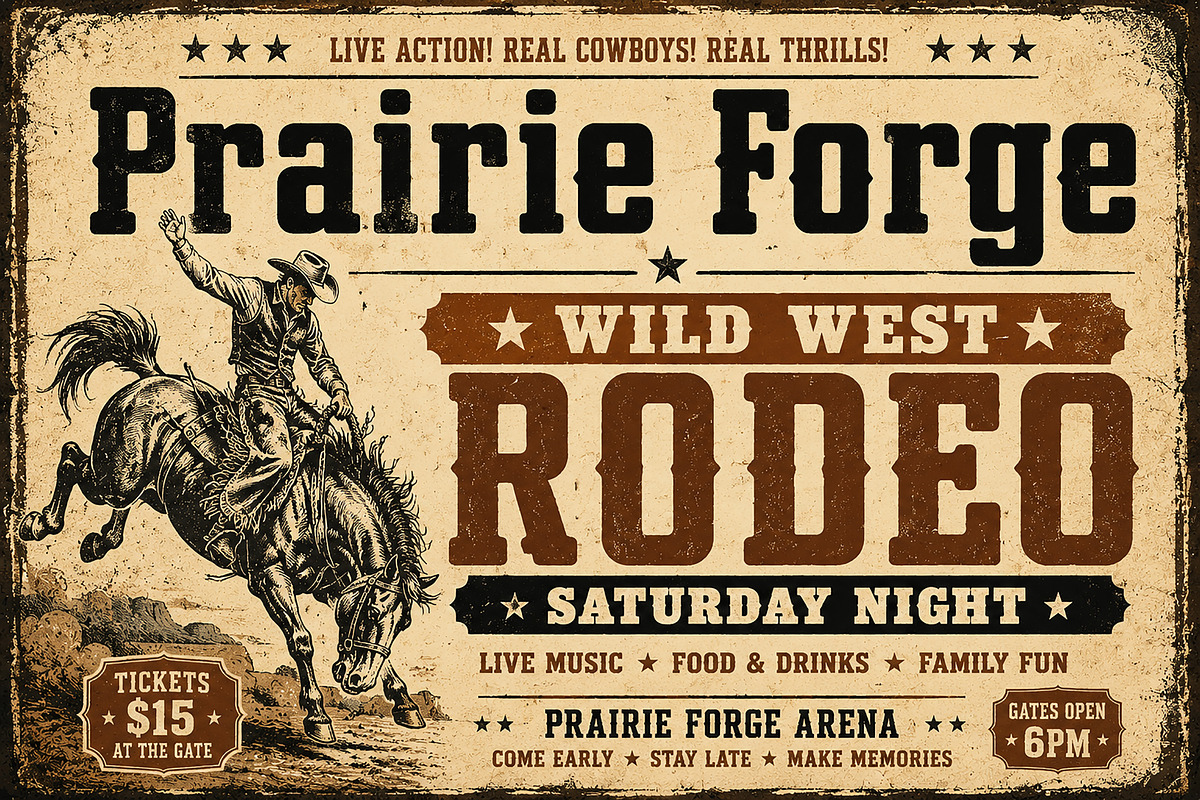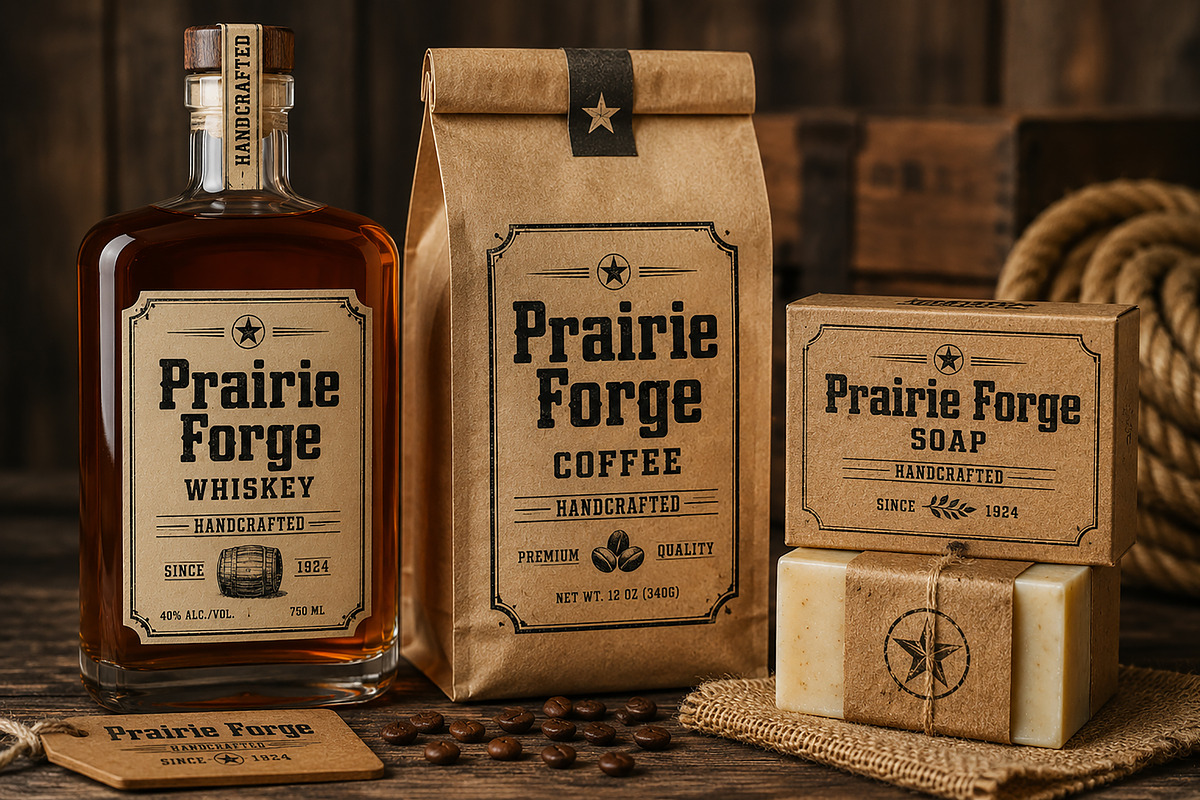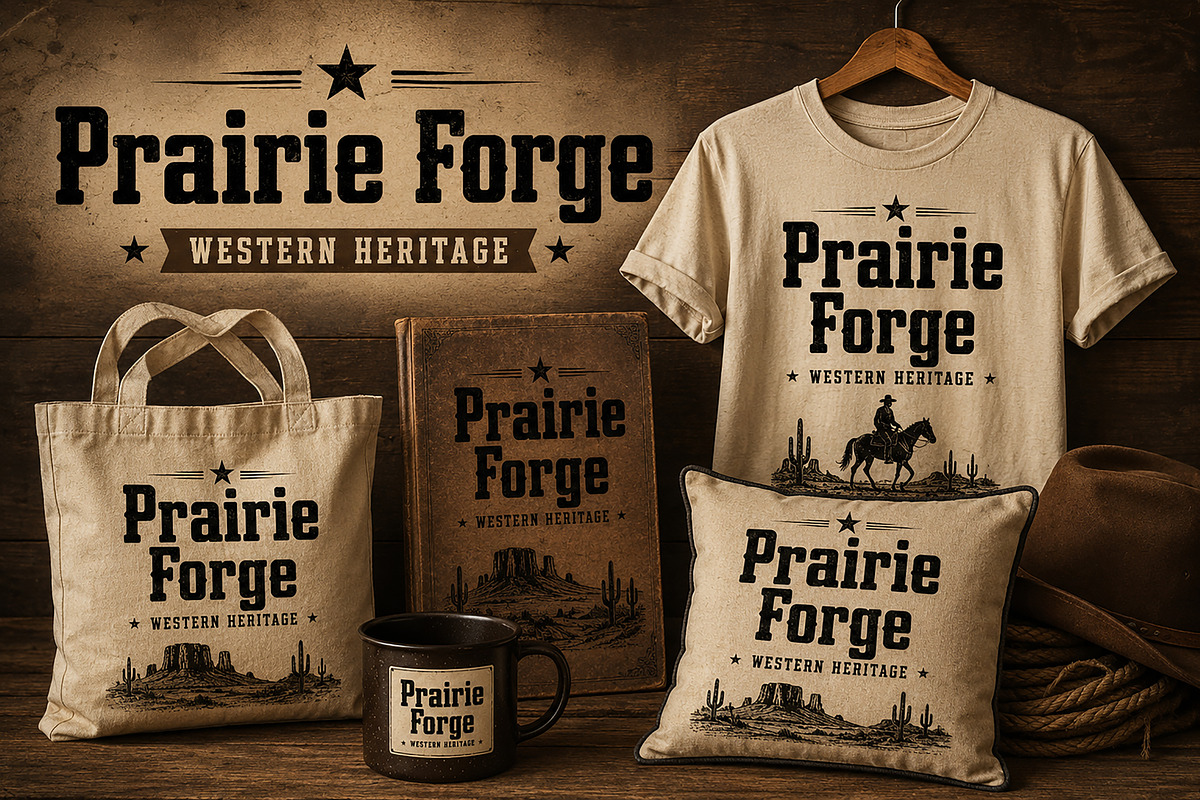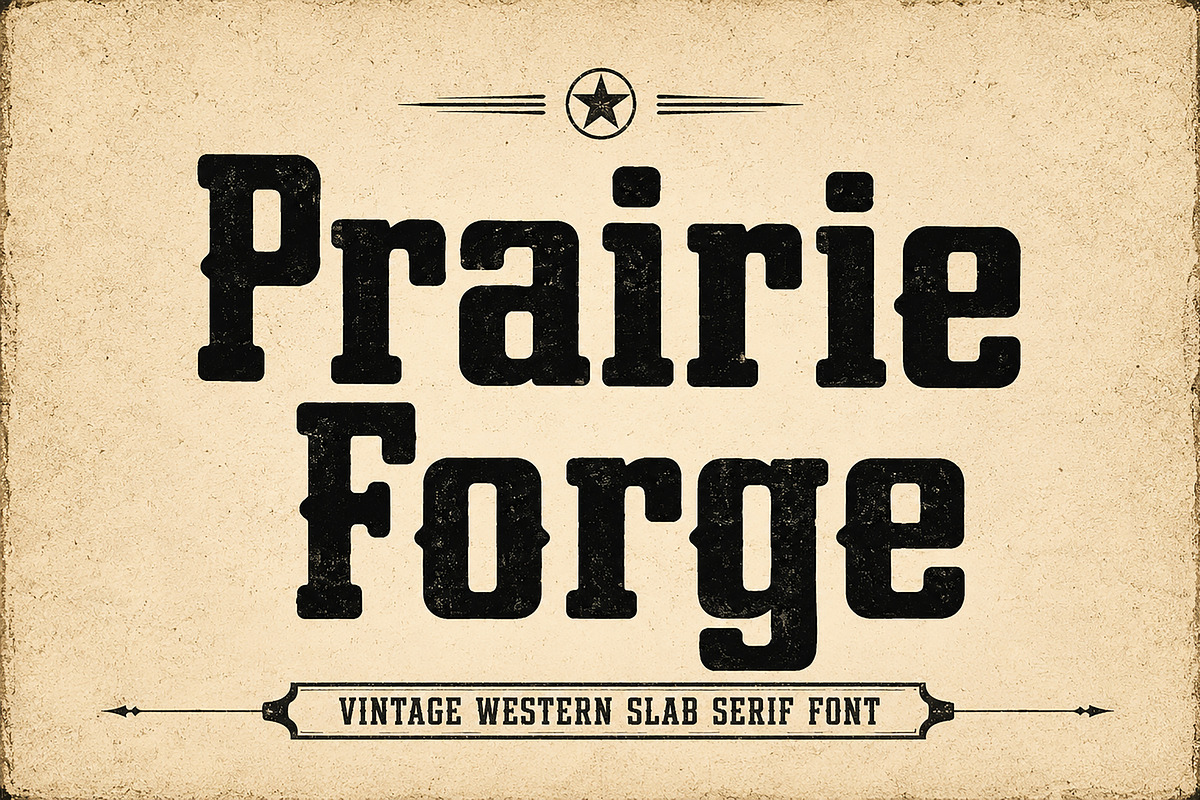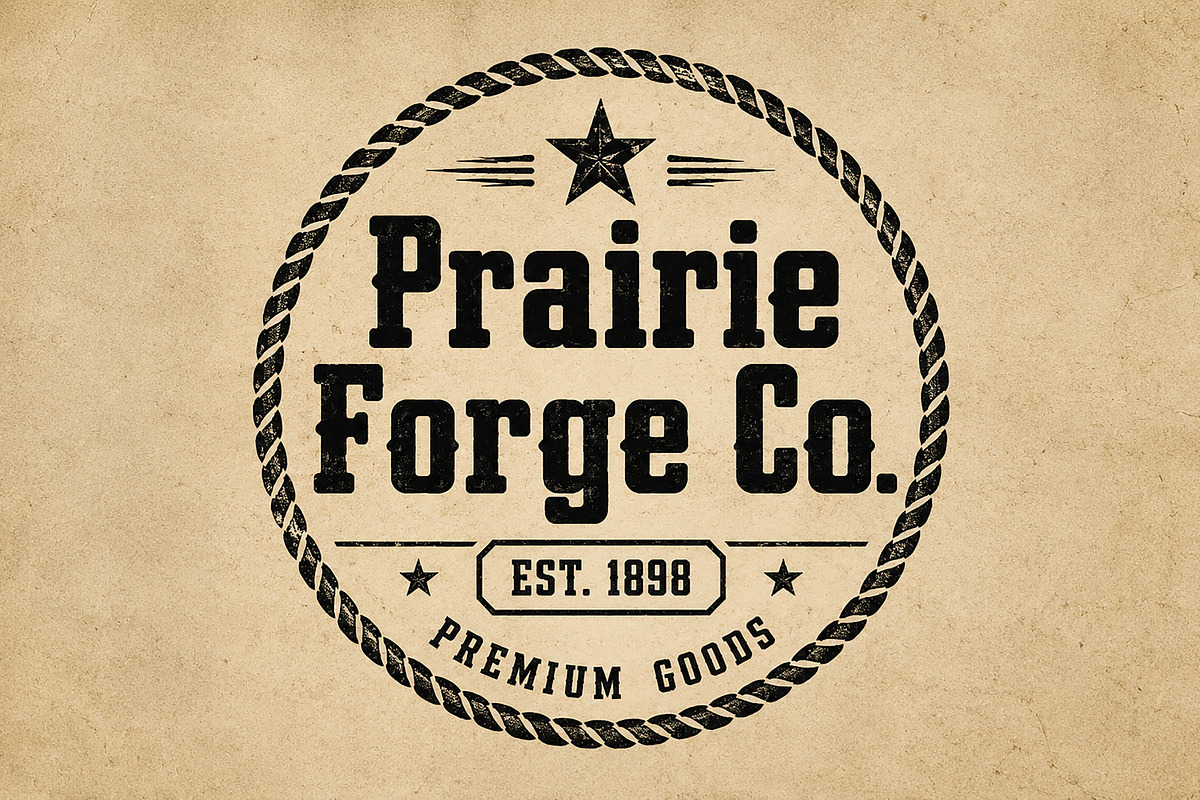
Prairie Forge
Prairie Forge – Vintage Western Slab Serif Font
Prairie Forge is a bold and rugged vintage western slab serif font inspired by old frontier towns, cowboy culture, ranch branding, whiskey labels, and classic Wild West typography. With its strong letterforms, sturdy serifs, and authentic western character, this typeface brings a timeless heritage feel to any design.
Perfect for logos, branding, packaging, posters, apparel, signage, book covers, product labels, and rustic merchandise, Prairie Forge delivers a powerful vintage look while maintaining excellent readability.
Whether you're creating a western-inspired brand, a handcrafted product label, a rodeo poster, or a classic Americana design, Prairie Forge adds authenticity, strength, and character to your work.
Western Logos
Vintage Branding
Whiskey Labels
Coffee Packaging
Ranch & Farm Designs
Rodeo Posters
Country Music Artwork
Apparel & Merchandise
Signage & Badges
Rustic Packaging
Cricut & Craft Projects
High Quality Display Typeface
Bring the spirit of the American frontier into your designs with Prairie Forge — a bold western font built for timeless vintage projects.